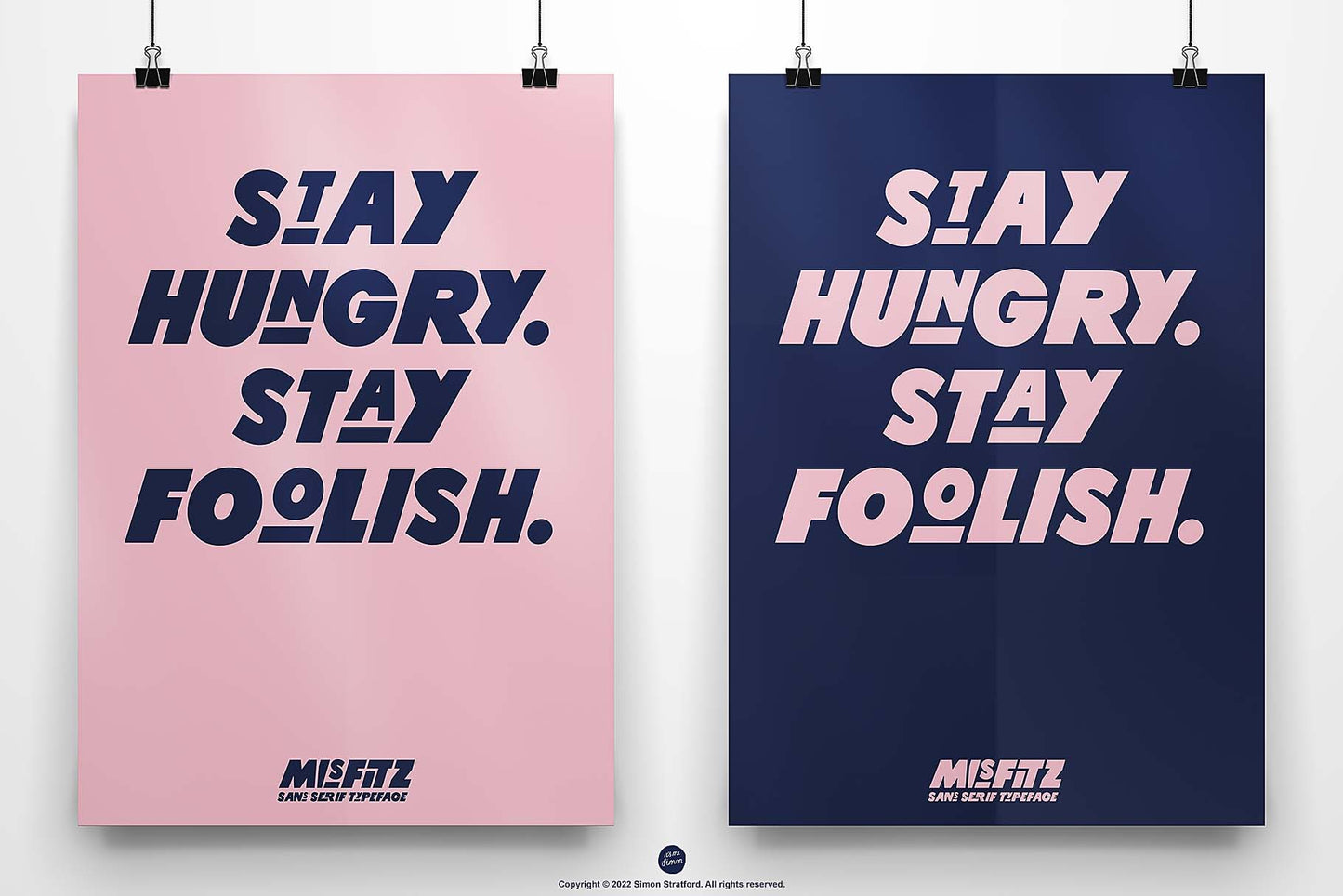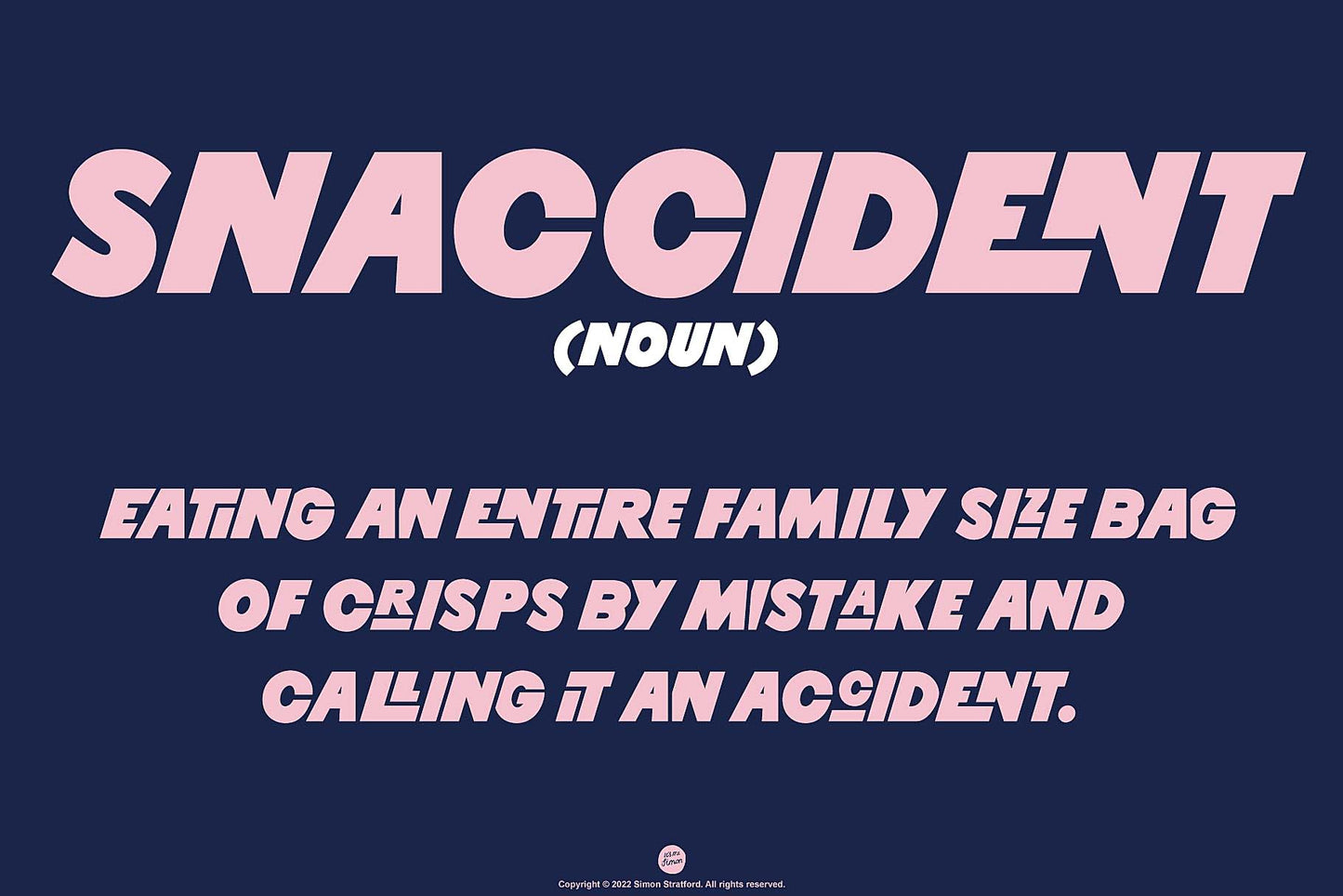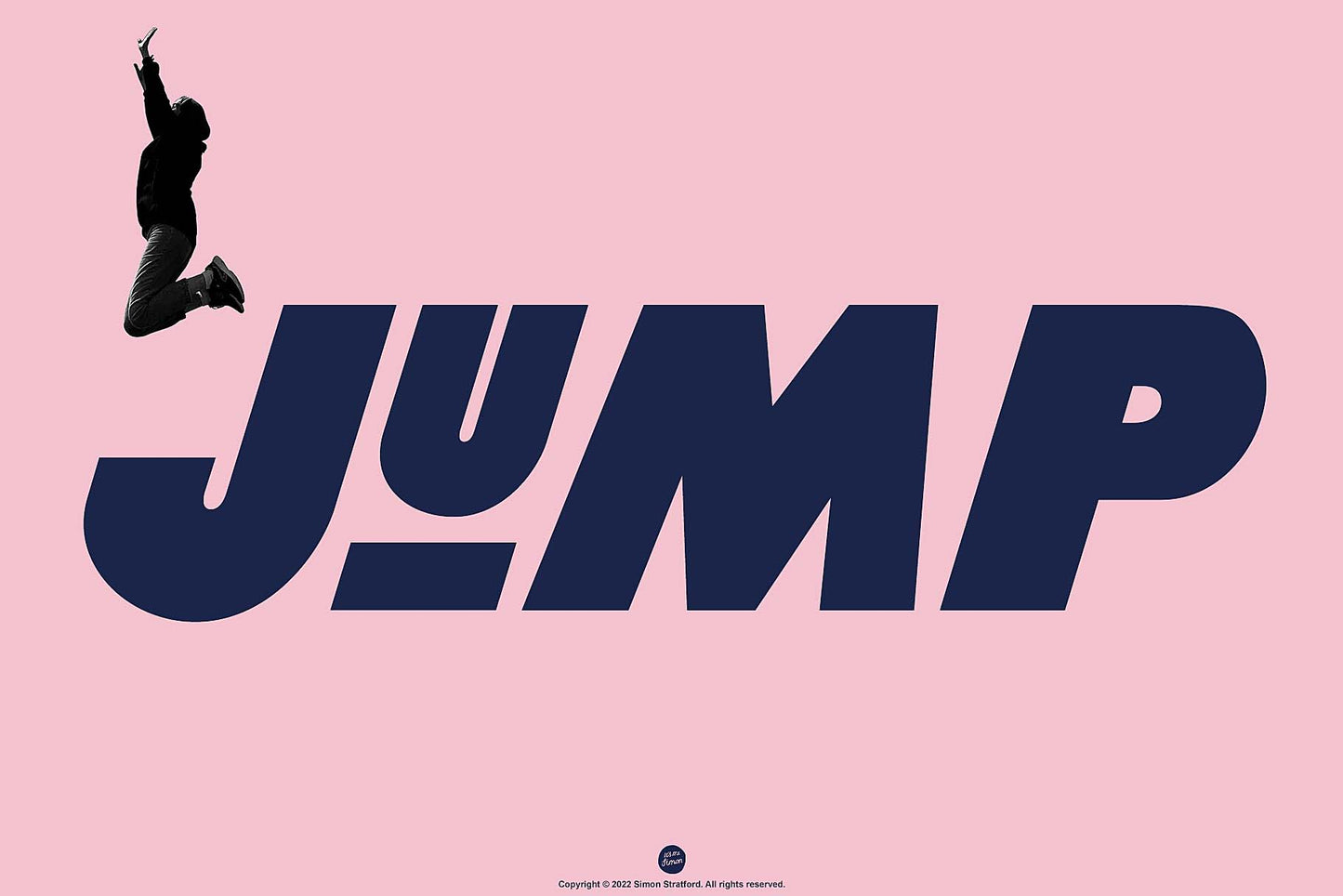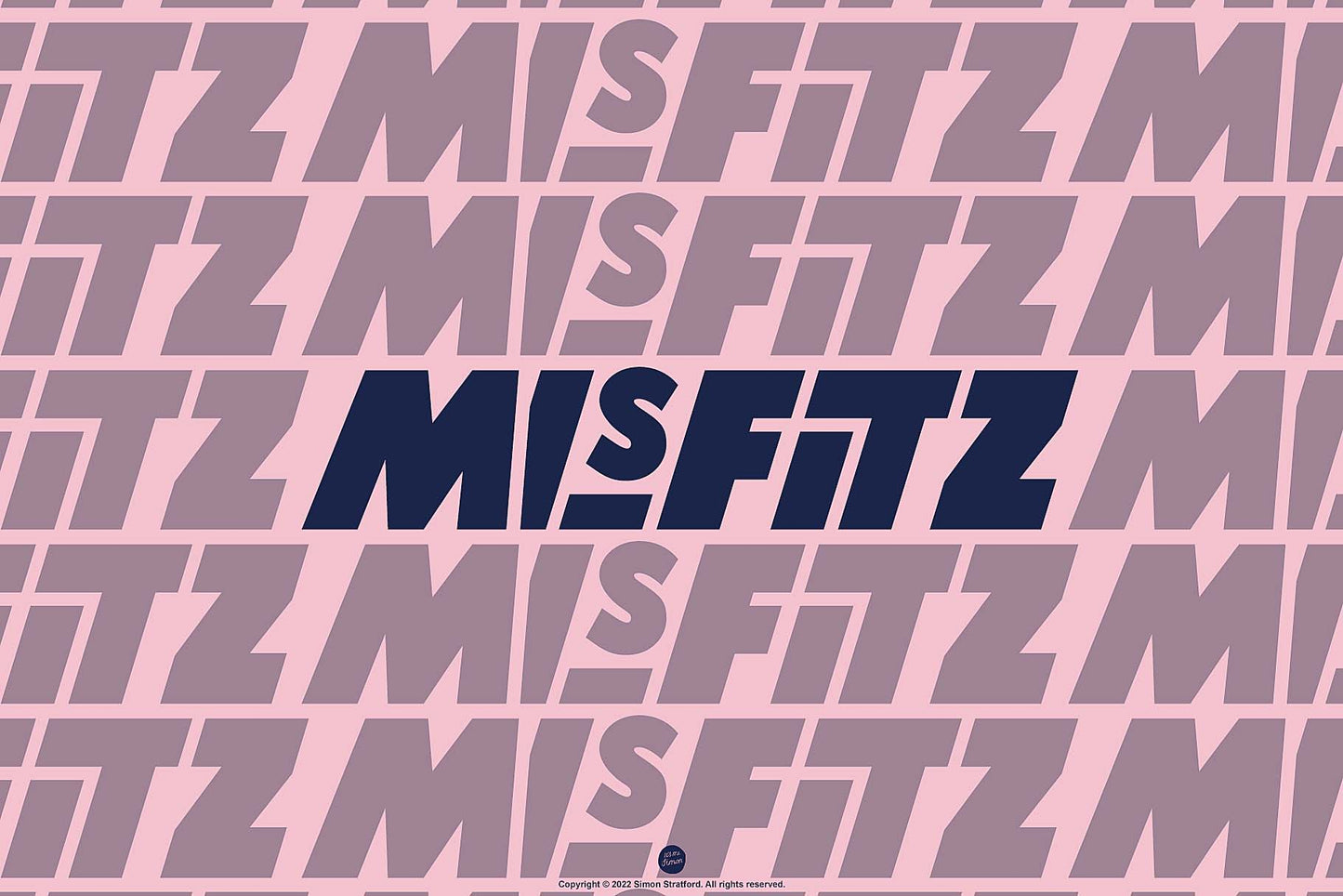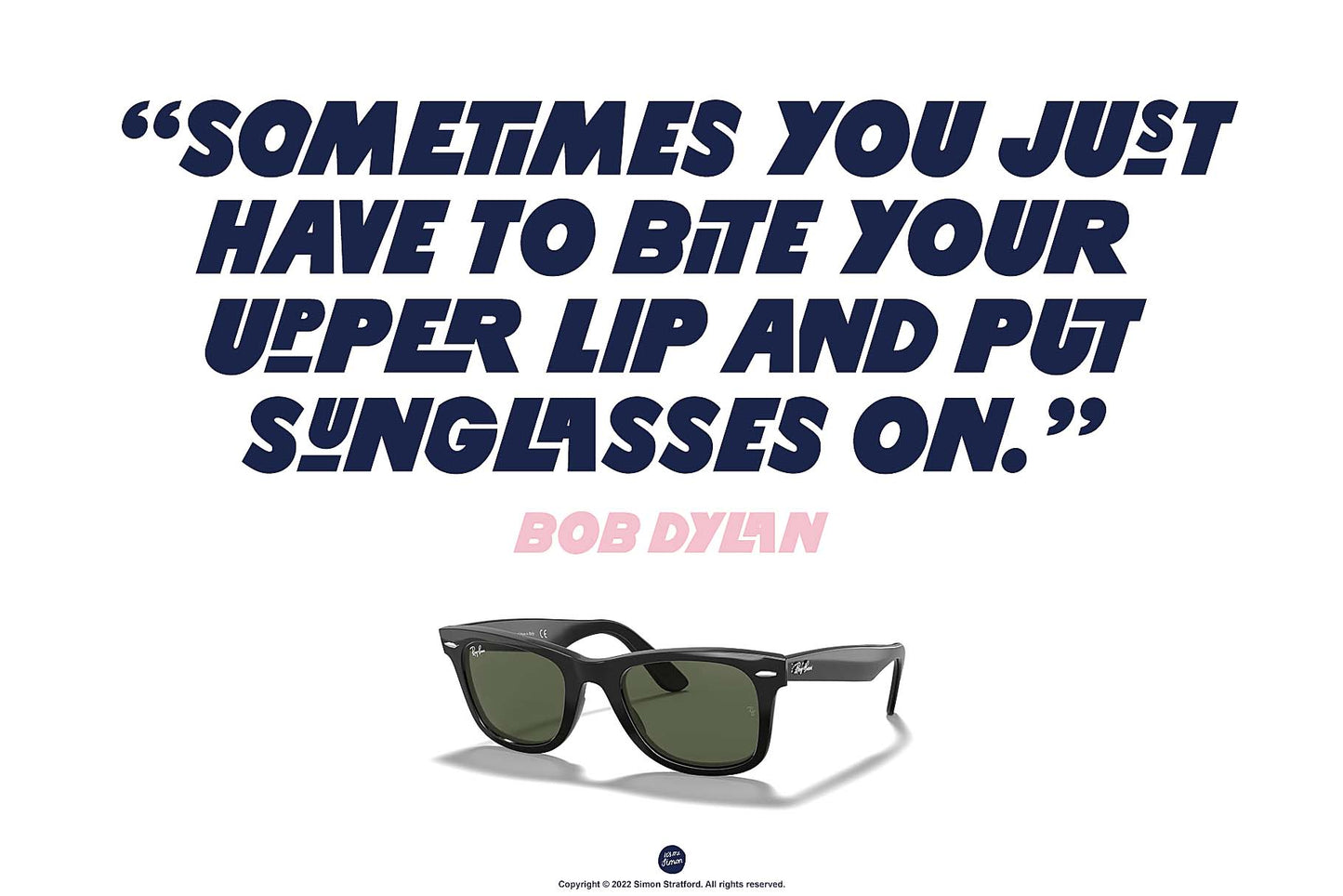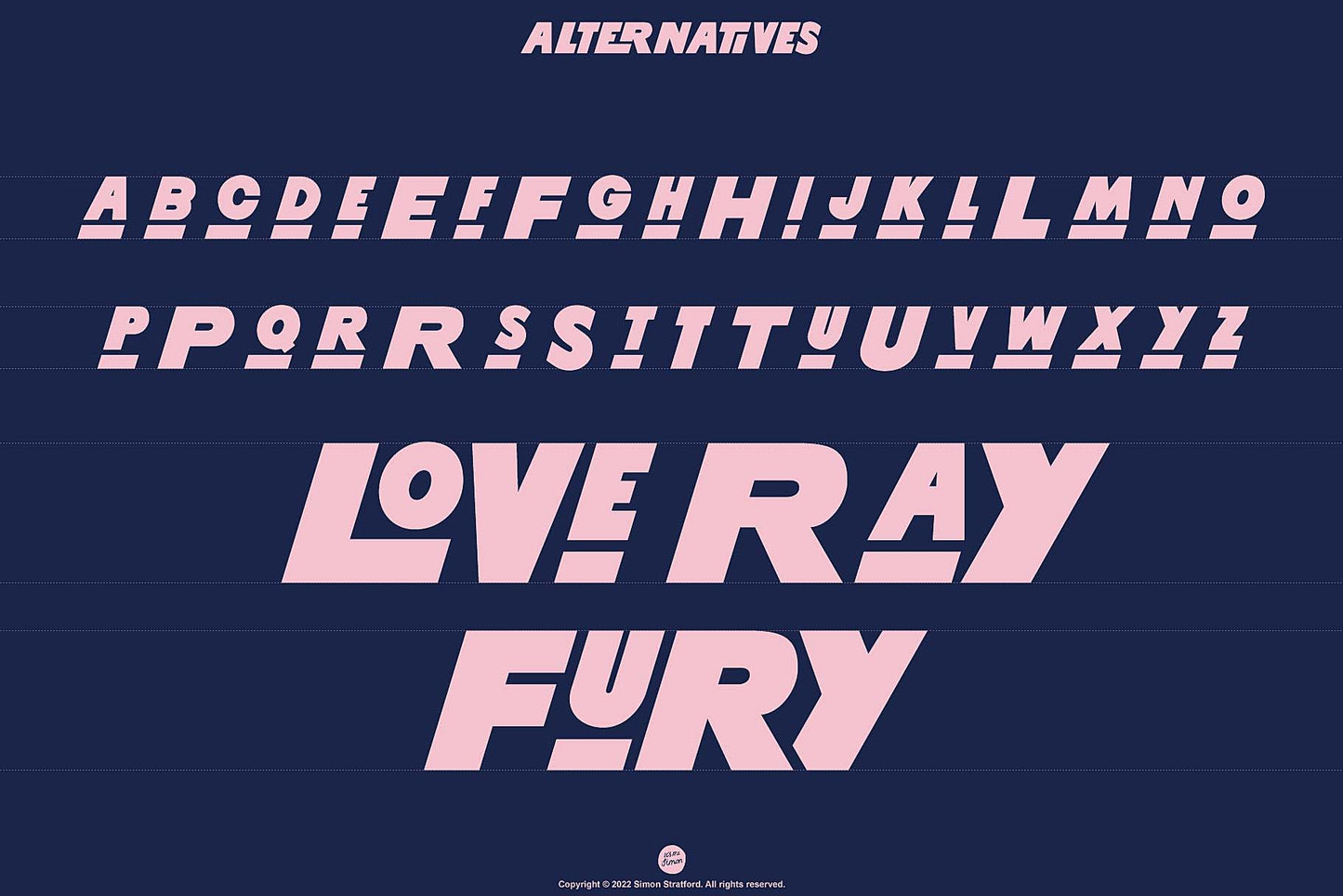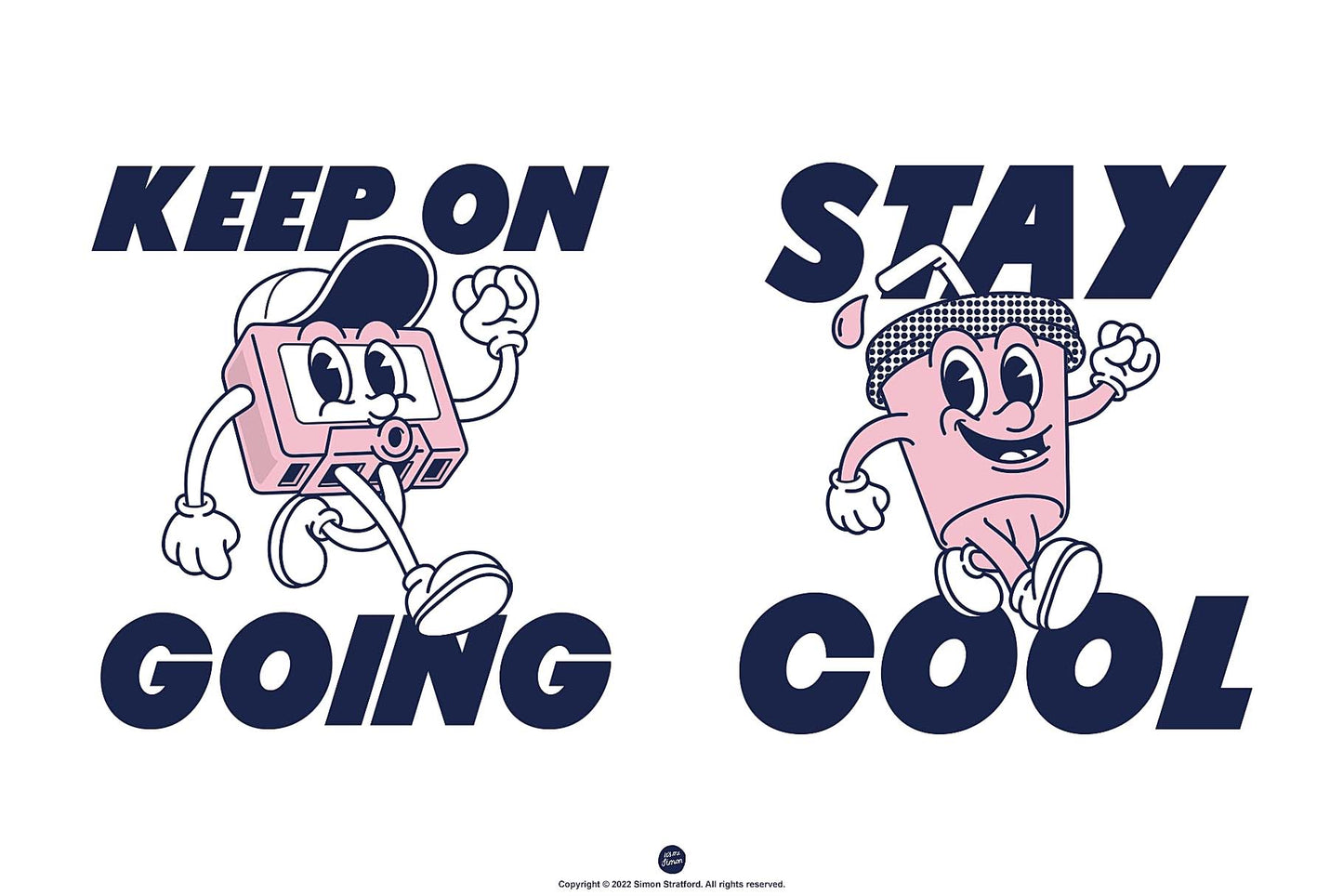
Misfitz font
About Misfitz font
Misfitz is a modern and playful bold sans-serif display font. This unique typeface, influenced by bold geometric fonts from the 1930s and American wood types from the late 19th century, was originally created on an iPad.
Super clean and bold
With its super clean lines, Misfitz strikes a balance between modernity and eccentricity. It manages to maintain legibility while adding a touch of human warmth to its bold design. While it's best suited for larger point sizes, it can work effectively at smaller sizes as well, offering versatility in usage.
Misfitz font usage
Misfitz can lend a modern vintage look to your designs, making it a charming and fun typeface to work with. It's a perfect choice for various display purposes, including branding, logo designs, invitations, editorial work, posters, headings, stationery, wall art, stickers, packaging, and more, especially when you want to give that bold urban aesthetic.
OpenType contextual alternatives
One of the standout features of Misfitz is its OpenType contextual alternatives. These alternatives allow you to swap out specific letter combinations, including interlocking letter pairs that give your design a distinctive street or urban look. The typeface also offers several stylistic sets, including smaller underlined characters for each letter and a selection of wider or narrower glyphs.
To access these alternates, you can activate them through OpenType features like Contextual and Stylistic sets in compatible design programs. Alternatively, you can manually select the characters from the Glyph Palette.
Furthermore, Misfitz boasts an extended character set that supports Central and Eastern European as well as Western European languages.
If Misfitz font were a celebrity
If Misfitz were to take on the persona of a celebrity, it would be none other than Quentin Tarantino. Just like Tarantino's films, Misfitz exudes an edgy and non-conformist spirit. Its bold and unconventional style makes it a standout choice for projects that seek to break free from the ordinary and embrace a unique, cinematic aesthetic.
Designers: Simon Stratford